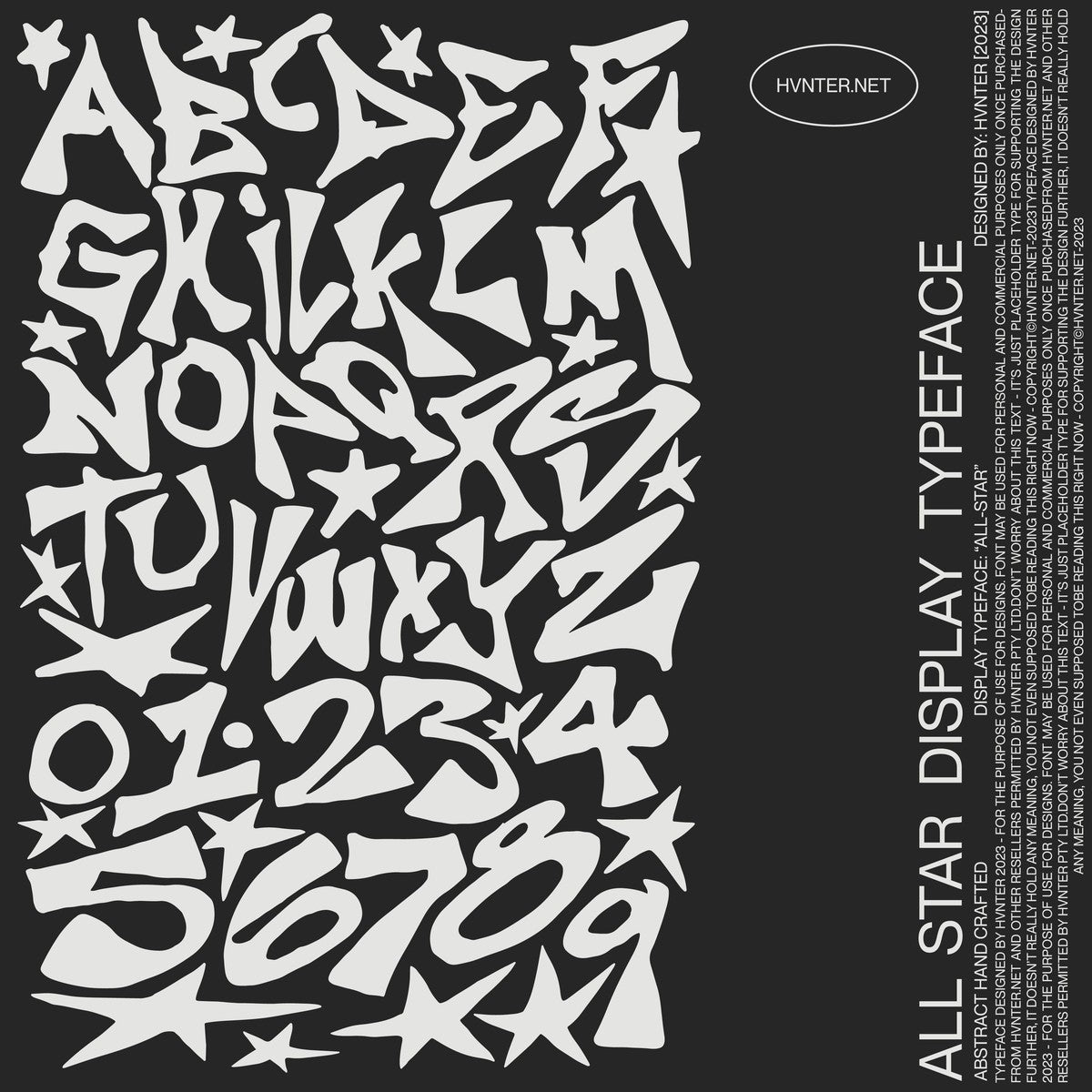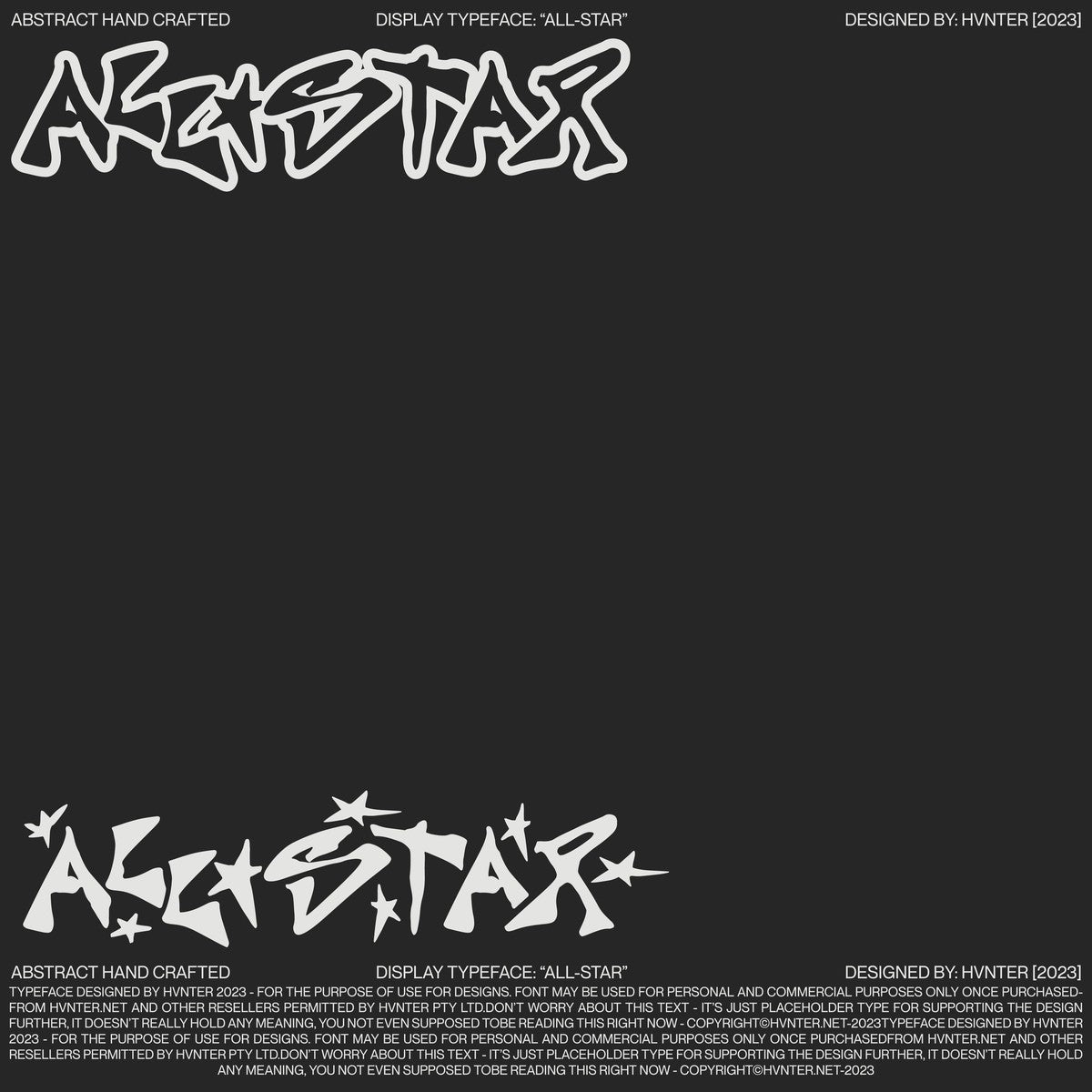
All-Star Display Typeface
The All-Star Display Typeface is a grunge-style, hand-drawn font that includes an .otf file of A-Z, 0-9, along with a selection of star glyphs. It's a unique asset for streetwear and Y2K-inspired designs.
Ideal for grunge-inspired graphic design and streetwear branding. Perfect for posters, album covers, and merchandise, ensuring a unique and edgy visual identity that resonates with contemporary aesthetics.